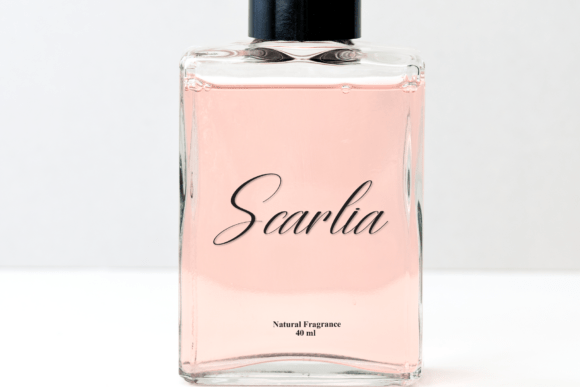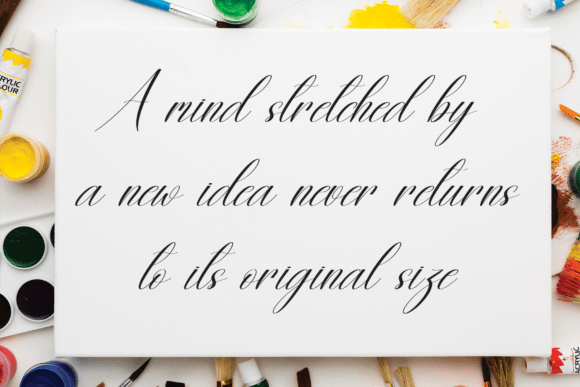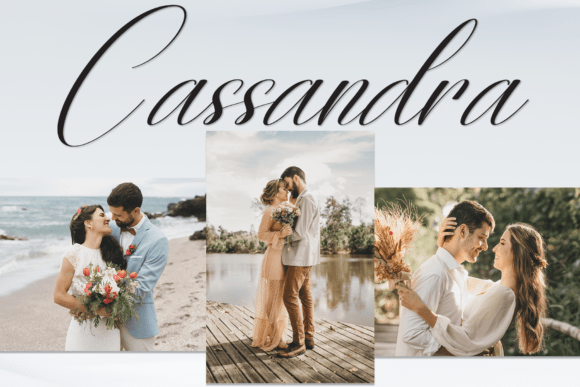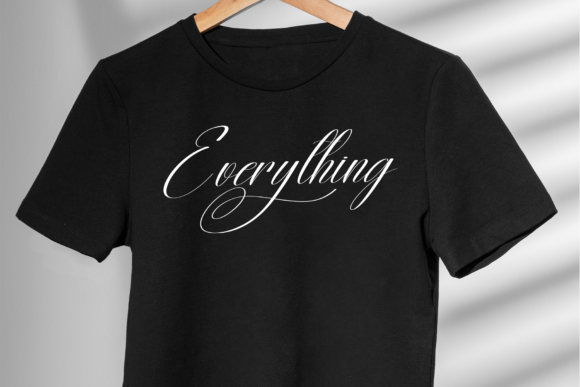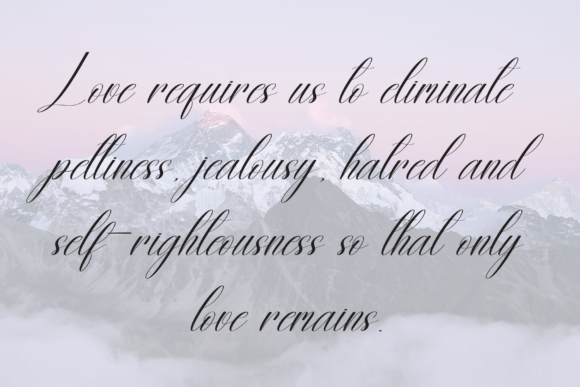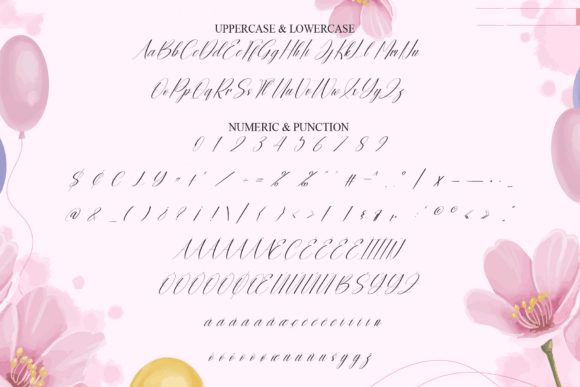
A Match Made in Heaven: Introducing Birthday Honeymoon Font
There’s nothing quite like the rush of creative excitement that comes with designing a special occasion, like a wedding invitation or a birthday card. As you sit down at your desk, brainstorming ideas and sketching out rough drafts, the pressure to get it just right can be palpable. But what if you had a secret weapon at your disposal – a font that exudes warmth, friendliness, and a playful touch?
Meet Birthday Honeymoon Font, a charming handwritten display font that’s sure to bring a smile to your face and a twinkle to your designs. Whether you’re crafting a romantic wedding invitation or a celebratory birthday card, this whimsical font is the perfect addition to your toolkit. With its effortless charm and natural flair, Birthday Honeymoon Font is a valuable asset for designers looking to add a little extra magic to their projects.
Birthday Honeymoon Font Key Features
- Unique Characteristic: The font features a beautiful, hand-drawn design with intricate details and subtle flourishes, giving it a romantic and whimsical feel.
Birthday Honeymoon Font Review
Overall, I have mixed feelings about the Birthday Honeymoon Font. On one hand, it has some lovely qualities that make it a great choice for certain projects.
- Cute and playful design that’s perfect for birthday and honeymoon invitations.
- Good for digital use, as it’s easy to read on screens.
- Unique and whimsical feel that adds a personal touch to designs.
- Available in a range of weights, making it easy to customize.
- Not ideal for formal or professional projects, as it’s too playful.
- May be difficult to read at small font sizes.
- No Cyrillic or Greek language support, which may limit its use.
- Some characters may not be as polished as others.
Overall, I’d say the Birthday Honeymoon Font is a great choice for casual, creative projects. However, it may not be the best fit for more formal or complex designs. With some careful consideration and customization, it can add a lovely touch to your designs.
The Birthday Honeymoon Font is perfect for creating custom invitations, party decorations, and other celebratory materials. It’s also great for adding a personal touch to wedding stationery and other special occasion items.